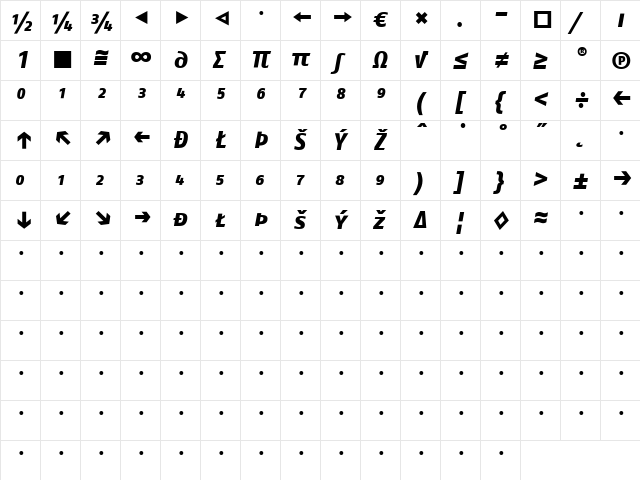
FagoNo ItalicExtrabold Font Preview
Design Context for FagoNo Typeface
FagoNo offers clean, dependable letterforms without strong stylistic allegiance, making it a practical choice for designers who need flexibility. The dynamic lean of this cut emphasises speed and emphasis in any layout. The heavy weight commands attention and anchors typographic hierarchies.
Pro Tip: Try FagoNo for annotation and caption copy alongside an upright companion — the contrast in angle creates a dynamic but ordered typographic system.